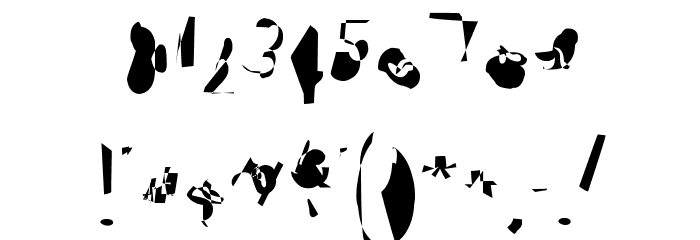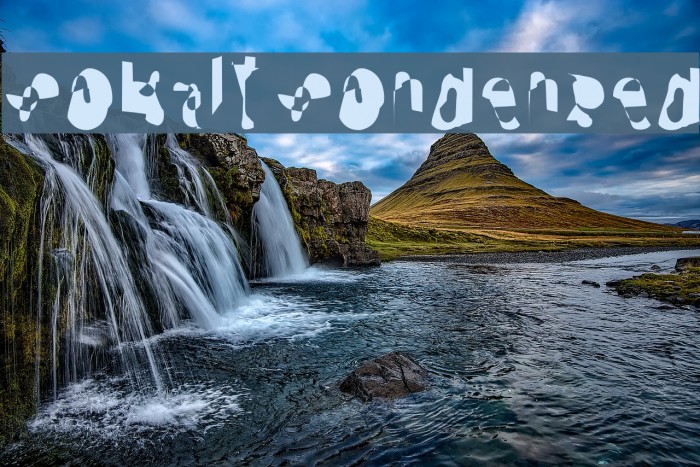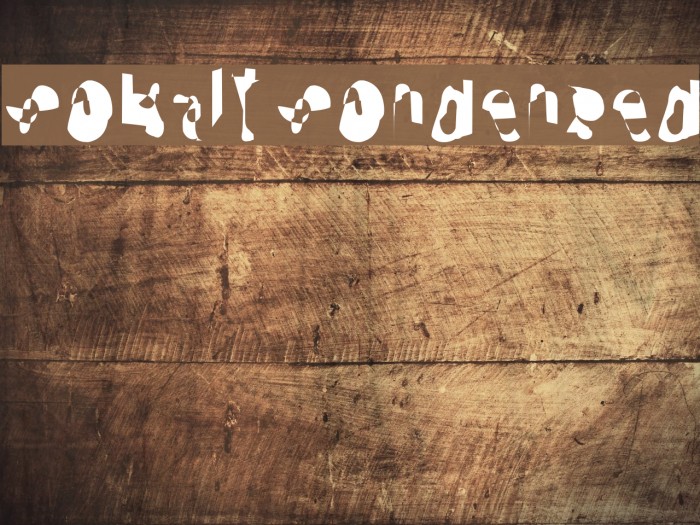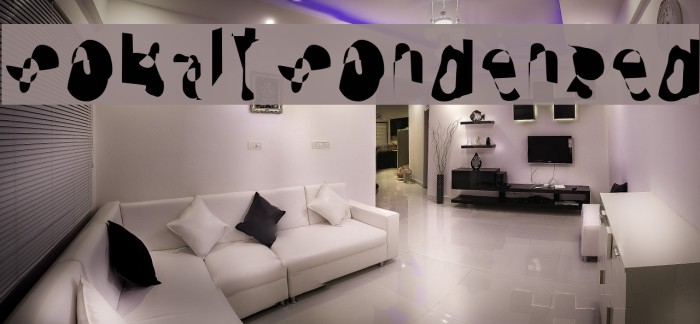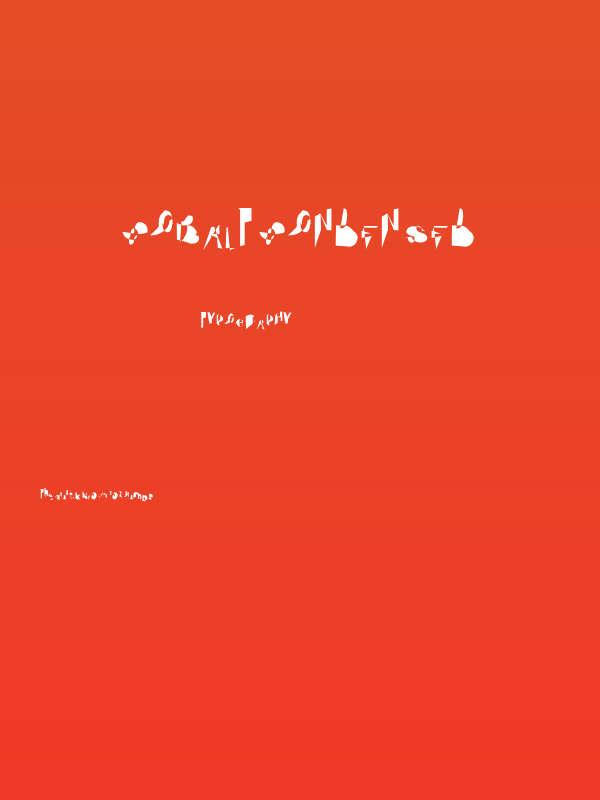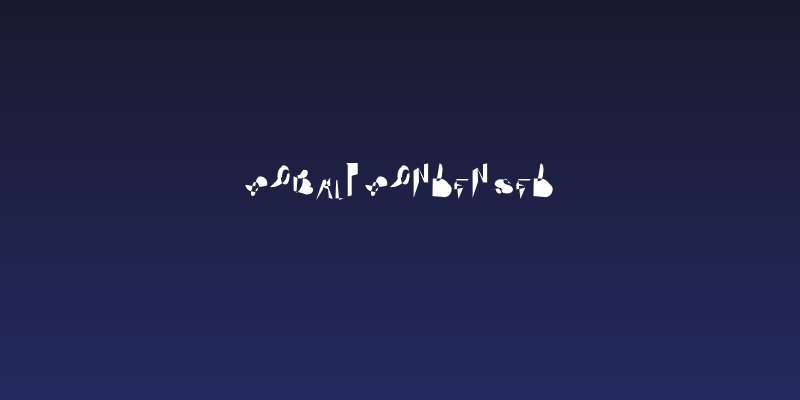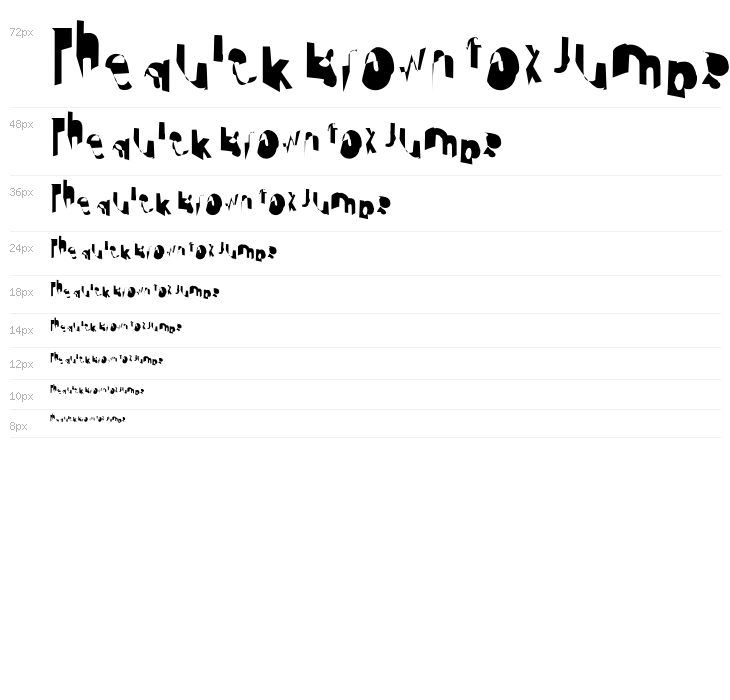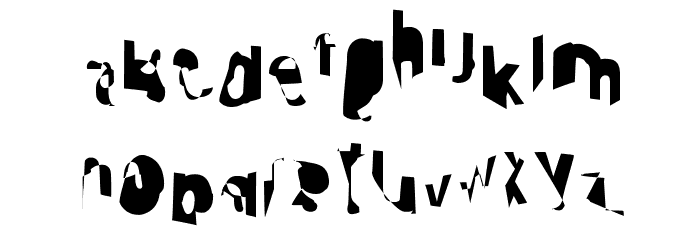
Cobalt Condensed Font
Cobalt Condensed Description
This font features a highly abstract and fragmented design, with each character appearing as if it has been shattered or distorted. The letters are bold and have a condensed width, creating a striking visual impact. The irregular shapes and sharp angles give it a chaotic yet artistic feel, making it stand out as a unique display font. The uppercase and lowercase letters maintain this fragmented style, while the numbers and special characters follow suit, ensuring consistency across the entire set. This font's unconventional appearance makes it ideal for projects that require a bold statement or an avant-garde aesthetic.
| Overall Style | Modern, Avant-Garde |
| Proposed Projects | Ideal for modern art posters, edgy branding, album covers, and experimental design projects. |